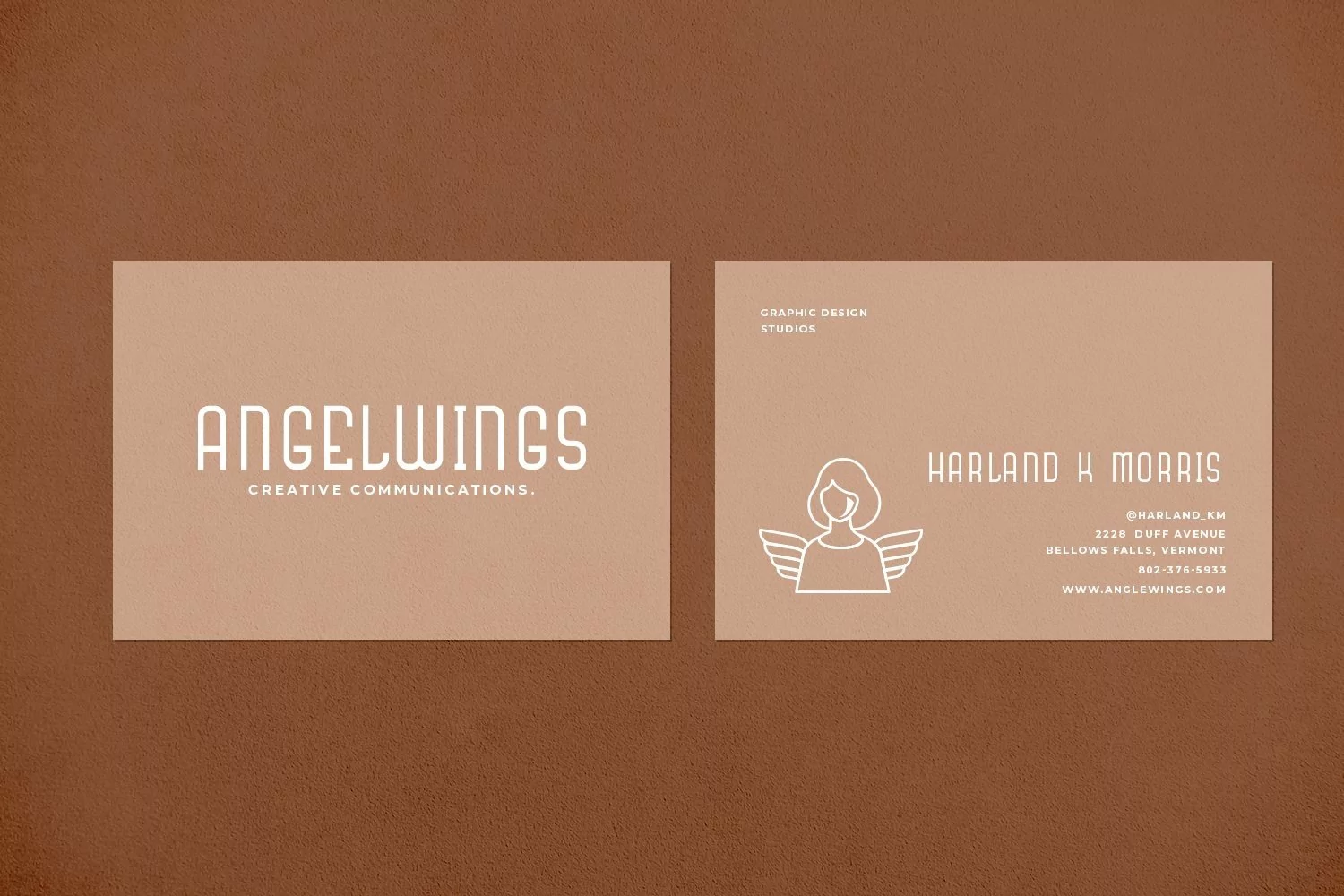
Rumbuns is a display typeface. Perfect for quotes, logo, logotype, badges, labels, emblem, packaging, merchandise, branding, member card, business card and many more.